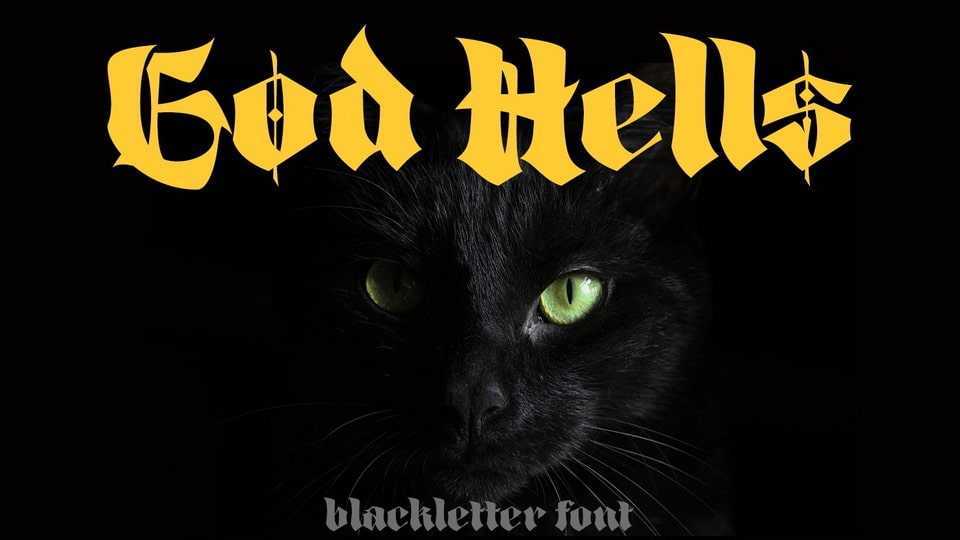
Download God Hells font, a classic blackletter typeface made with a stylish impression. God Hells font is suitable to create any branding, product packaging, invitation, quotes, t-shirt, label, poster, logo etc.